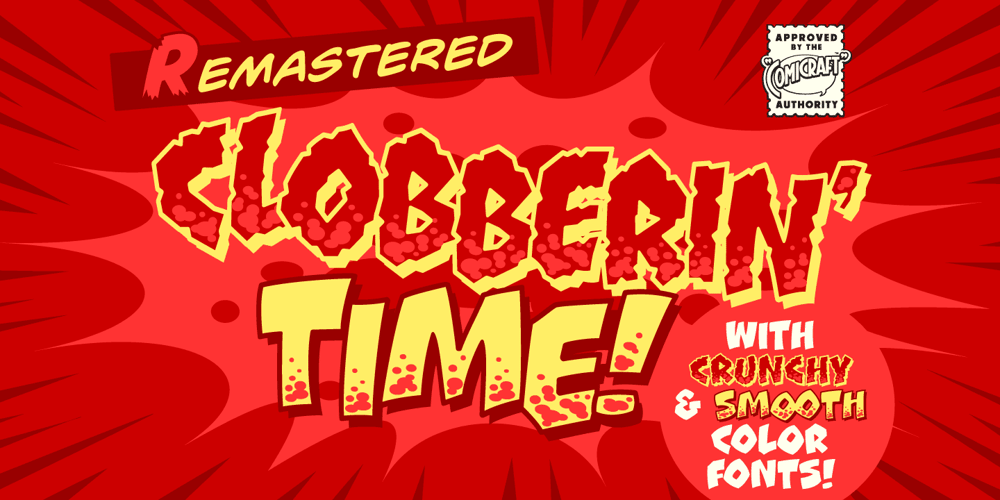
Clobberin Time Font Family was designed by Richard Starkings, John Roshell and published by Comicraft. Clobberin Time contains 7 styles and family package options. Sheesh! Seems like Aunt Petunia’s favorite blue-eyed nephew is about to open up a whole freight train full of Whupass faster than you can say “It’s Clobberin’ Time!”Come out swinging with Comicraft’s best-loved sound effect font, now with added KIRBY KRACKLE to give extra Powerhouse to every Punch!Remastered Clobberin’ Time features new Krackle, Outline & Color weights, family name grouping, auto alternates & ligatures, Tabular numbers & math symbols, improved spacing & kerning, and complete Central European language support.